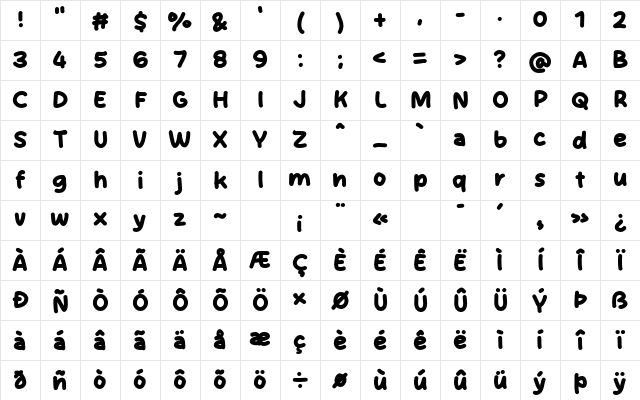
Milky Juice Regular
Design Context for Milky Juice
Milky Juice is a composed and adaptable typeface that performs quietly and consistently across a wide range of design contexts.